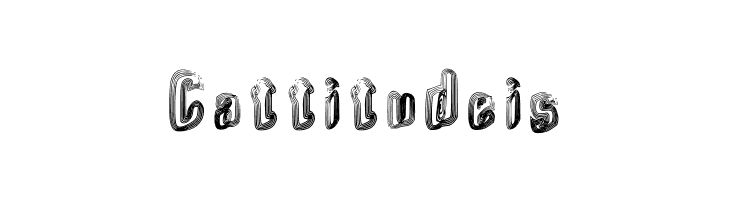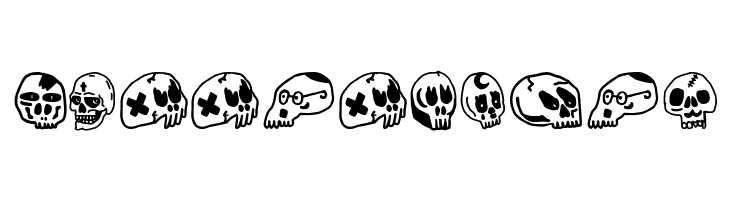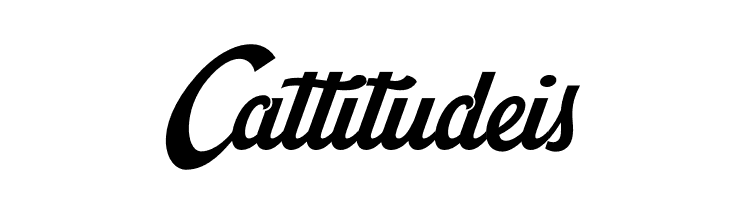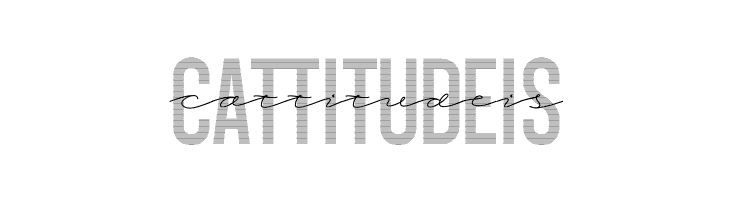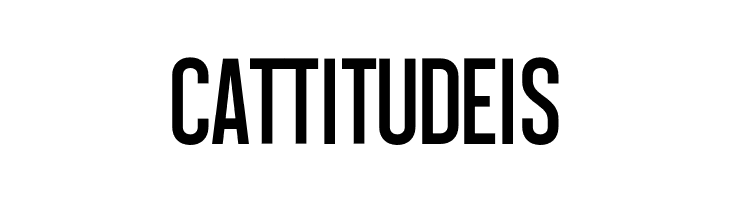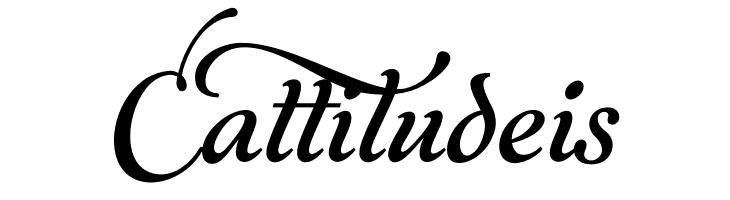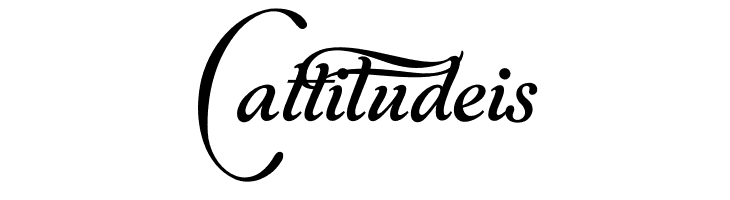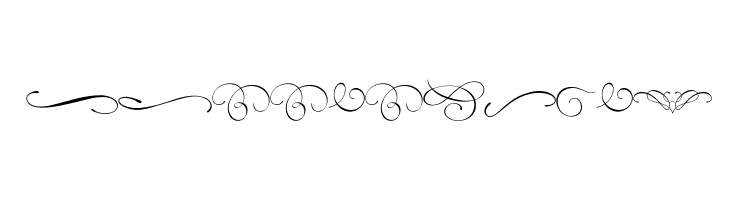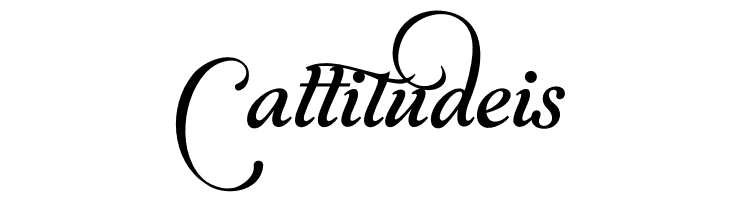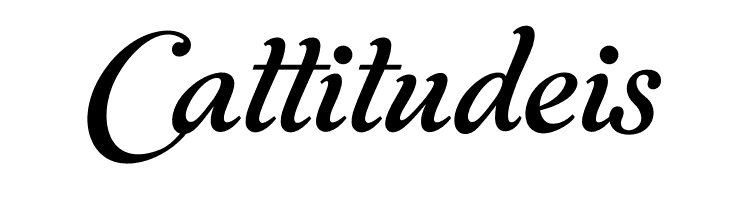
A bold, geometric font with characters enclosed in squares, offering a modern and artistic style.
A bold, hand-drawn font with a rugged, rock-like texture.
A bold, rugged font with a hand-carved, vintage woodcut style.
Expressive, hand-drawn font made of bearded faces as characters.
A bold, hand-drawn font with a playful and irregular style.
A decorative font featuring playful and unique skull illustrations.
A playful, bold, and cartoonish font with a hand-drawn, shadowed style.
A playful, bold font with a three-dimensional shadow effect.
A bold, hand-drawn font with an artistic, ink-splattered style.
A playful, hand-drawn font with bold, irregular strokes and whimsical serifs.
Playful, horror-themed hand-drawn dingbat font with bold, cartoonish illustrations.
A bold, textured font with circular backgrounds and a woodcut style.
A bold, decorative typeface with a vintage, playful style and intricate detailing.
A diverse collection of decorative and expressive script fonts with unique flair.
A bold sans-serif font with an elegant cursive script overlay, offering a modern yet personal style.
A bold, modern font with a gradient effect and cursive lowercase letters.
A bold, modern sans-serif font with clean lines and strong readability.
A bold sans-serif uppercase paired with elegant cursive lowercase, offering a modern and versatile style.
Silhouette-based decorative font using work-themed figures as letterforms.
Illustrative font featuring workers and job scenes as characters.
Hand-drawn, sketch-style font with a playful, informal look.
A whimsical, hand-drawn display font filled with quirky illustrations.
An elegant script font with flowing, interconnected letters and elaborate swashes.
An elegant script font with flowing, cursive letterforms and ornate flourishes.
An elegant script font with flowing, connected strokes and decorative swashes.
An elegant script font with intricate swashes and high contrast strokes.
Intricate and elegant swashes with flowing, ornate curves.
An elegant script font with ornate flourishes and a luxurious feel.
An elegant script font with flowing, interconnected letterforms and intricate swashes.
A bold, cursive font with elegant, sweeping curves and a cohesive style.
A whimsical, decorative font with playful swirls and curls.
A whimsical and decorative font with playful curls and loops.
An illustrative, cartoon-style decorative font with unique artwork for each character.